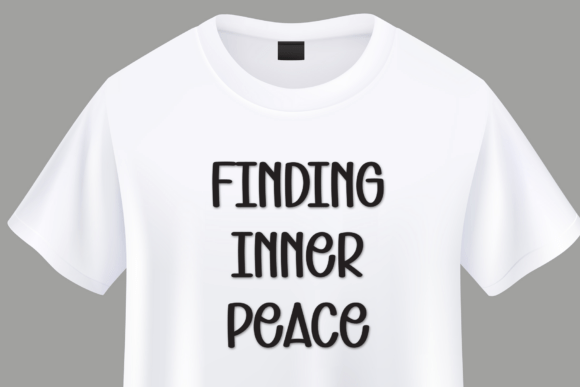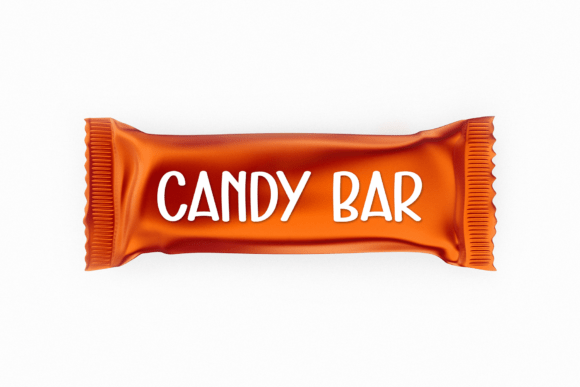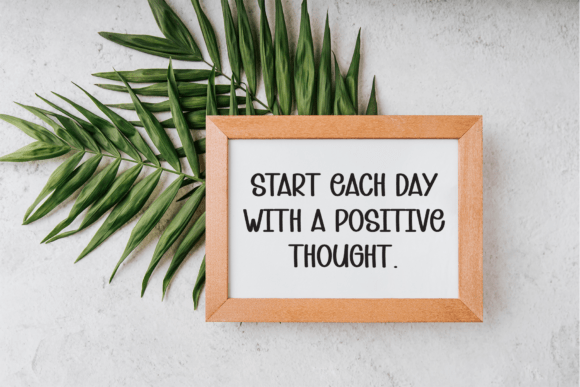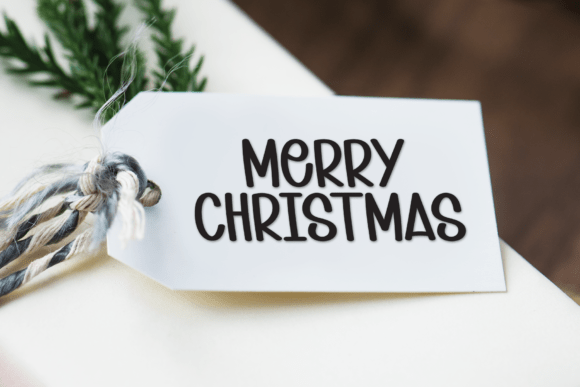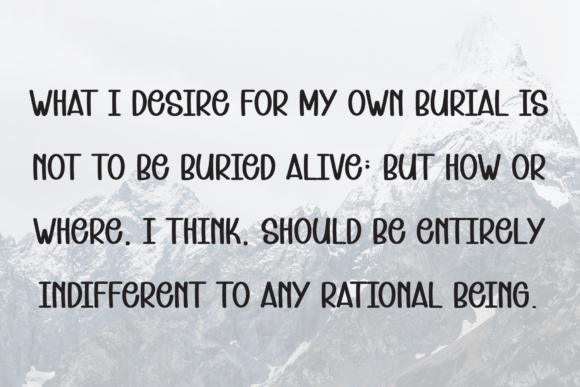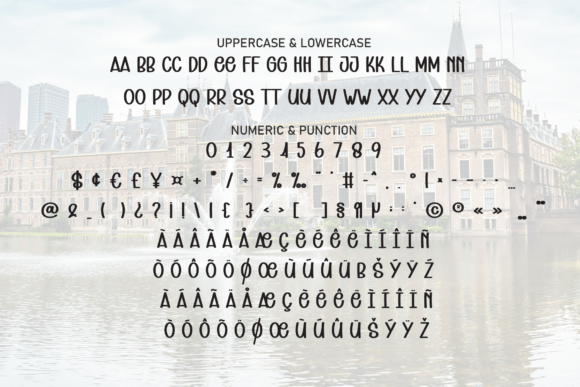
Unlocking the Charm of Amsterdam Font
Do you ever find yourself browsing through design inspiration boards, and suddenly, a particular font catches your eye? For me, it was a design project featuring the Amsterdam Font that sparked a wave of creativity. I was immediately drawn to its clean lines and friendly vibe, and I knew I had to learn more.
The Amsterdam Font is a display font designed to capture the essence of modern handwritten typography. Its balanced letterforms, subtle rounded edges, and polished finish make it an ideal choice for branding, headlines, packaging, and digital content. With its versatility and crisp structure, this font delivers clarity and charm in equal measure.
As a designer, having access to a reliable and stylish font like Amsterdam Font can be a game-changer. It adds a warm and inviting touch to any design, making it perfect for projects where you want to convey a sense of approachability and friendliness.
Amsterdam Font Key Features
- Font Family: Amsterdam Font is a sans-serif typeface designed by Fontfabric.
- Font Size: Amsterdam Font is available in 6 weights, ranging from Thin (100) to Black (900).
- Unique Characteristics: Amsterdam Font features a clean and modern design, with a unique combination of geometric and organic shapes, making it suitable for a wide range of applications, from corporate branding to digital products.
- Language Support: Amsterdam Font supports a wide range of languages, including Latin, Cyrillic, and Greek scripts.
Amsterdam Font Review
As a designer, I was excited to dive into the Amsterdam Font and see what it has to offer. Here’s my honest review:
- Unique Character: Amsterdam Font has a distinctive character that sets it apart from other fonts. It’s a great choice for projects that need a touch of elegance and sophistication.
- Legibility: The font is highly legible, making it perfect for body text and long blocks of text.
- Customization: Amsterdam Font comes with a range of weights and styles, allowing designers to customize their project to fit their needs.
- Limited Italic Options: Amsterdam Font has limited italic options, which may be a drawback for designers who want to add emphasis to certain text.
- No Bold-Italic Options: Similar to italic options, Amsterdam Font lacks bold-italic options, which may limit its use in certain design scenarios.
Overall, Amsterdam Font is a solid choice for designers who want a unique and elegant font. While it has some limitations, its customization options and legibility make it a great option for a wide range of projects. I would definitely consider using it in my next design project.
The Amsterdam font is a beautiful, elegant script font perfect for:
- Magazine and book titles.
- Wedding and event signage.
For best results, use the Amsterdam font in conjunction with high-quality images and thoughtful design elements.
Alternatives to Amsterdam Font for Designers
Playfair Display is an elegant and luxurious serif font, perfect for creating a high-end and sophisticated look. It’s ideal for use in titles, headings, and other display text where you want to make a statement.
Comparison to Amsterdam Font: While Amsterdam Font has a more modern feel, Playfair Display is more traditional and ornate, making it a great choice for designers who want to add a touch of elegance to their designs.
Merriweather is a classic serif font that’s perfect for body text and paragraphs. It’s highly readable and versatile, making it a great choice for designers who want a clean and simple look.
Comparison to Amsterdam Font: While Amsterdam Font is more modern and playful, Merriweather is more traditional and understated, making it a great choice for designers who want a clean and simple look without the frills.
Montserrat is a modern sans-serif font that’s perfect for use in titles, headings, and body text. It’s highly readable and versatile, making it a great choice for designers who want a clean and modern look.
Comparison to Amsterdam Font: While Amsterdam Font has a more organic feel, Montserrat is more geometric and modern, making it a great choice for designers who want a clean and modern look without the playfulness of Amsterdam Font.
Is Amsterdam Font available in different weights and styles?
Yes, the Amsterdam Font family includes multiple weights and styles, including Light, Regular, Medium, Bold, and Extra Bold. Each weight and style is designed to provide a consistent visual identity across various design applications. You can mix and match different weights and styles to create a unique visual hierarchy and emphasis in your designs.